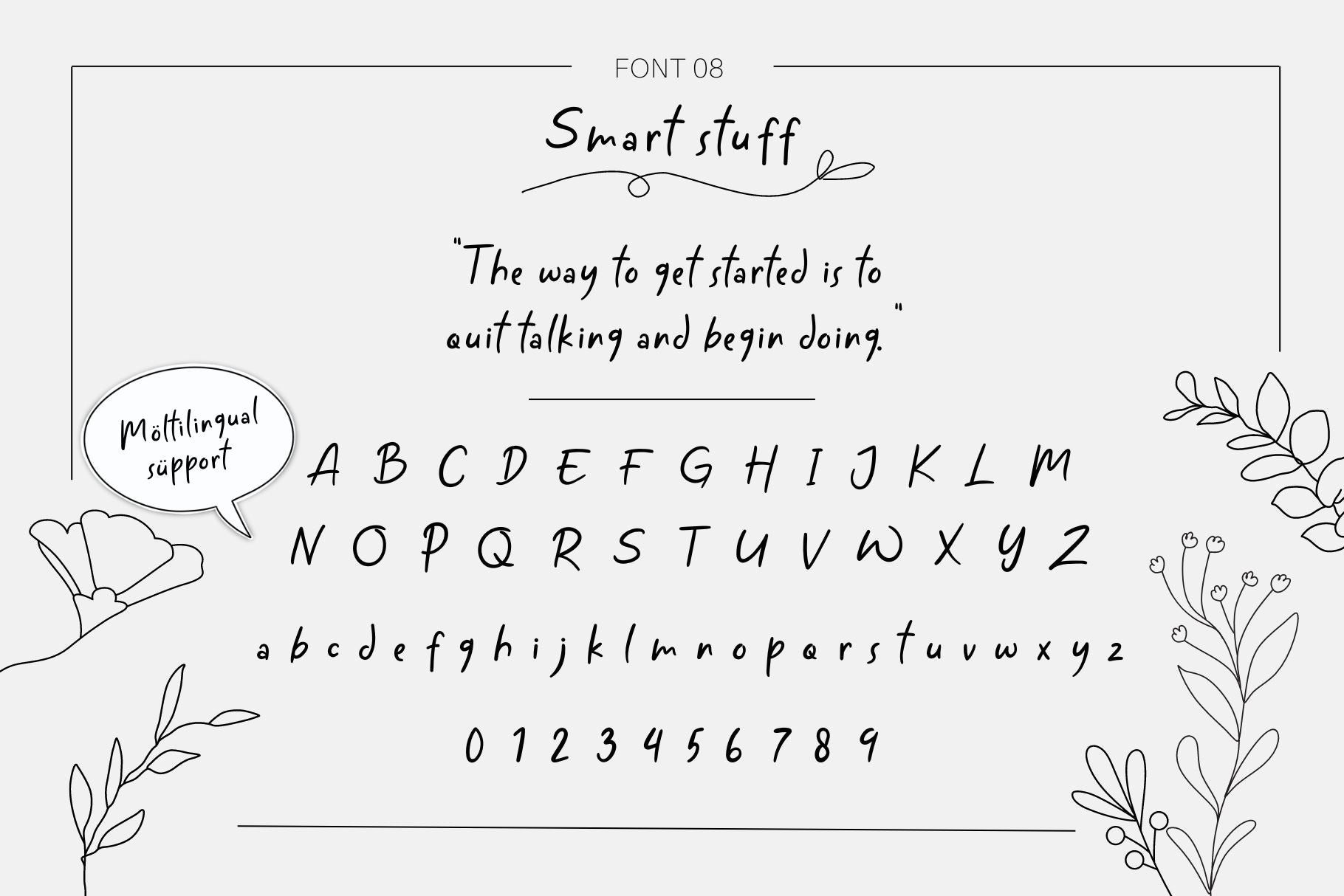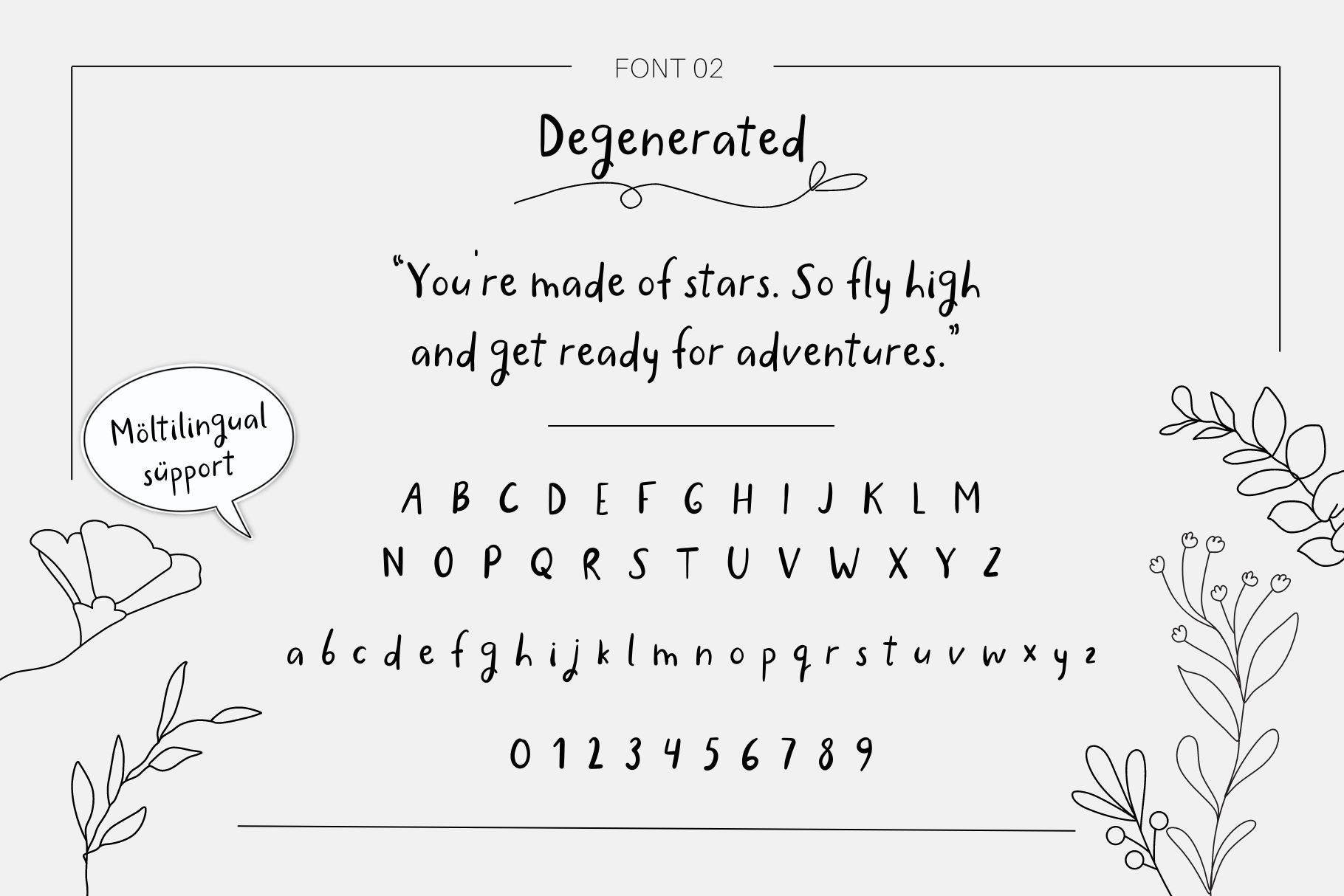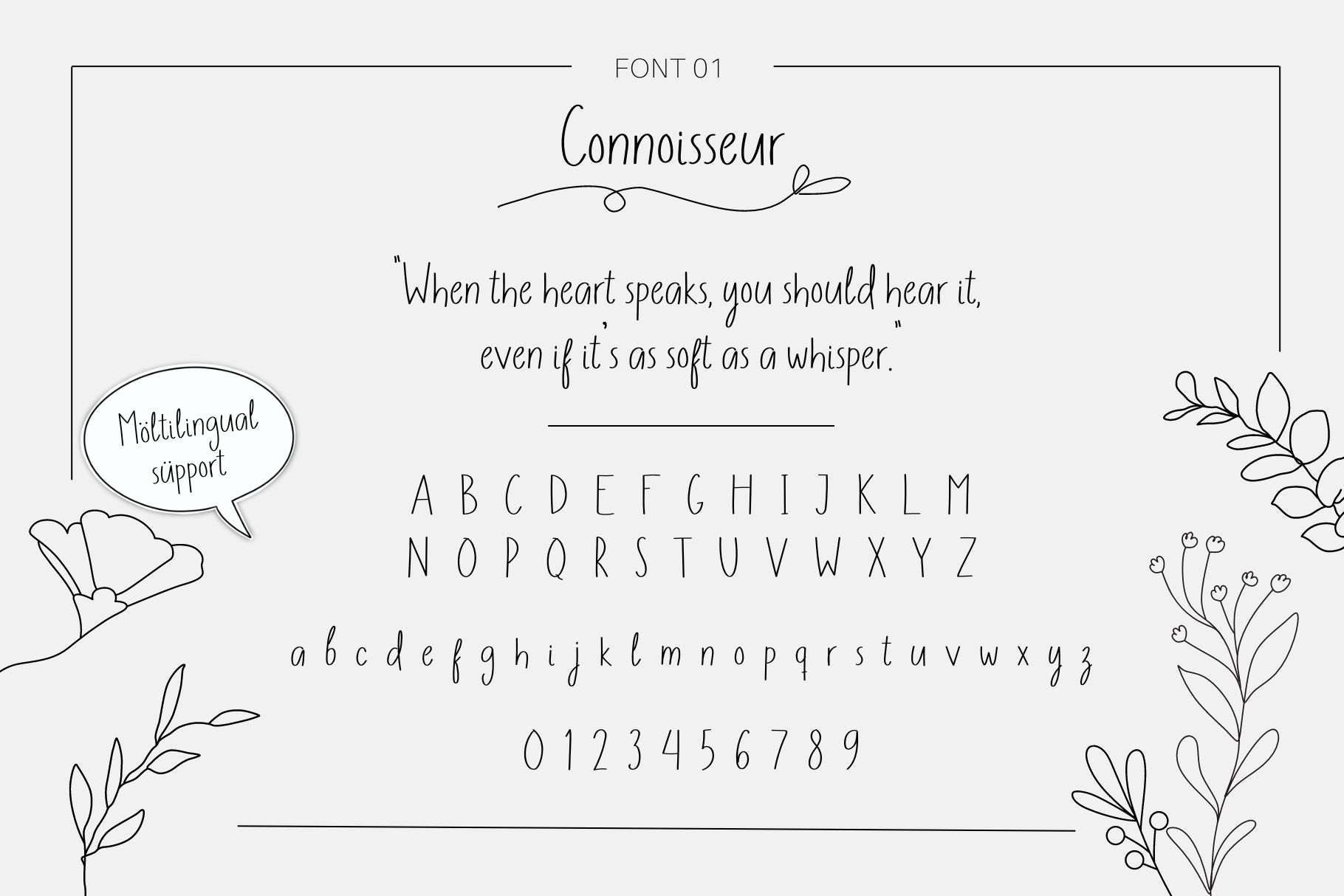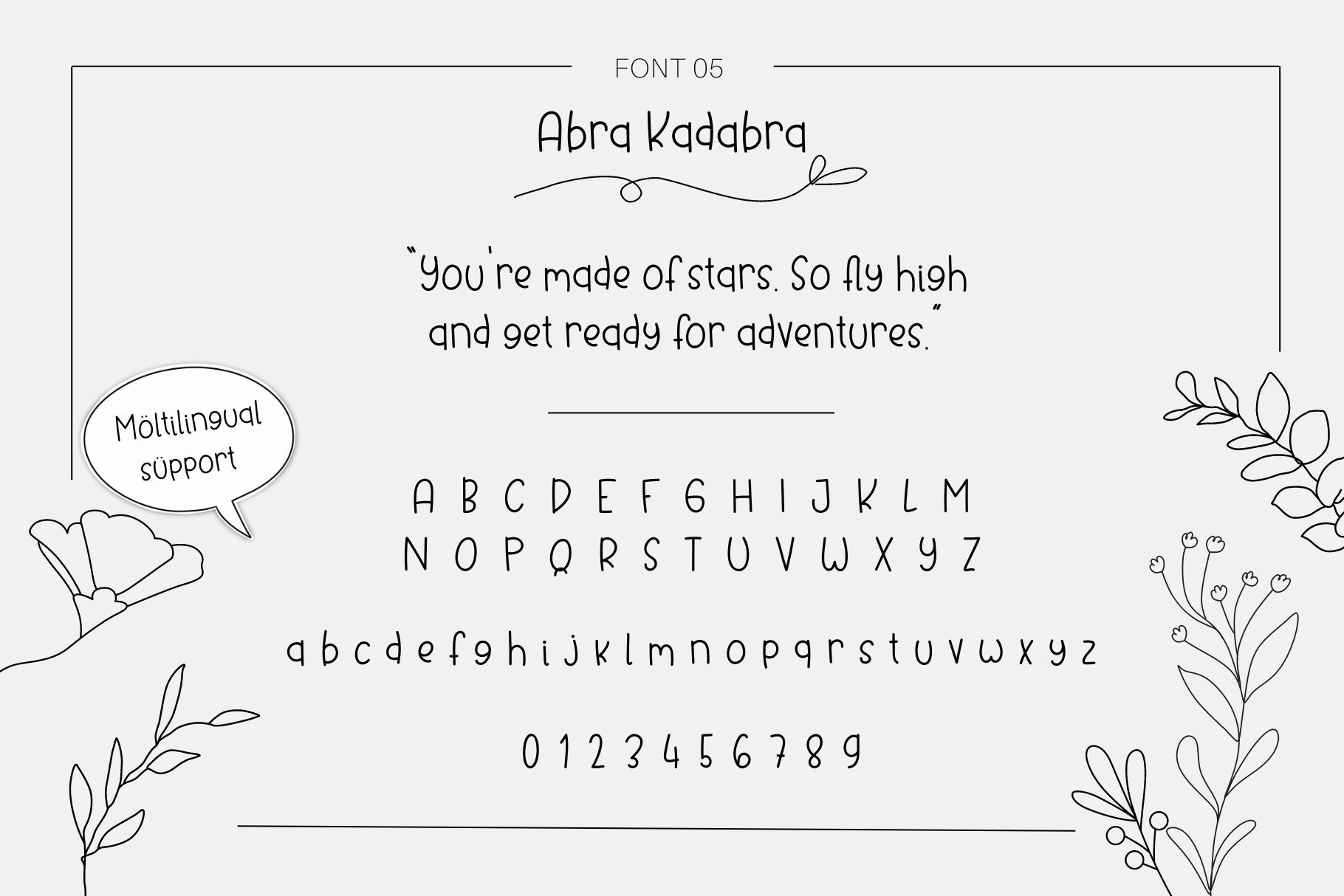
About Handwritten Fonts Bundle
This collection includes 8 beautifully crafted handwritten fonts that will bring a personal touch to any project. Whether you’re taking notes for class, creating a presentation, or making daily notes, these fonts will make your words stand out. Each font in this bundle also offers multilingual support. With a range of options to choose from, you’ll be able to find the perfect font to match your style and mood. The Handwritten Font Bundle is a great deal, with a price that’s lower than purchasing each font individually. Get your bundle today and start making your words stand out! All fonts in come in OTF & TTF Uppercase Letters Lowercase Letters Numbers & Punctuation Multilingual Support Characters: a b c d e f g h i j k l m n o p q r s t u v w x y z A B C D E F G H I J K L M N O P Q R S T U V W X Y Z 0 1 2 3 4 5 6 7 8 9 . , : ; ! ? ‘ \” ‘ ’ “ ” @ _ & # % * + – × ÷ = ~ < > / \ ( ) { } [ ] $ ¢ € £ ¥ © ® ™ À Á Â Ã Ä Å Æ Ç È É Ê Ë Ì Í Î Ï Ñ Ò Ó Ô Õ Ö Ø Œ Ù Ú Û Ü Ý Ÿ Þ Ð Ł Š Ž ¡ ¿ « » ‹ › ¤ • ° ± − ¶ § ‰ ⁄ – — à á â ã ä å æ ç è é ê ë ì í î ï ñ ò ó ô õ ö ø œ ù ú û ü ý ÿ þ ð ł š ž ß ı ^ ˆ ˇ ¨ ˜ ‘ ´ ¸ ‛ ‚ „ … | † ‡